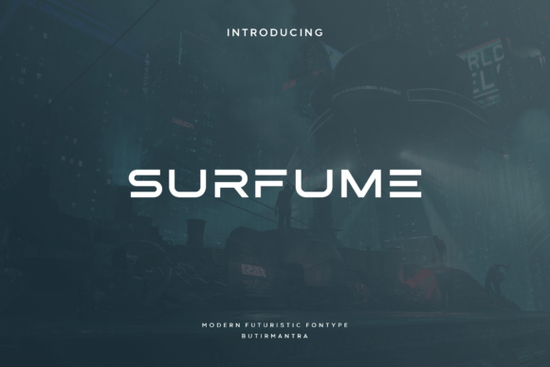
When you're looking for a font that can add a modern and elegant touch to your projects, Surfume Font is a great choice. This futuristic typeface draws inspiration from science fiction films and books, making it perfect for a wide range of creative endeavors like movies, posters, logos, and labels.
Why Choose Surfume Font?
Surfume Font stands out with its minimalistic design, which gives it a sleek and contemporary look. Whether you're a designer, crafter, or a small business owner, this font can help you create visually appealing and professional-looking designs. Its versatility makes it suitable for both digital and print projects, ensuring that your work looks polished and modern.
How Can You Use Surfume Font in Your Projects?
One of the key strengths of Surfume Font is its adaptability. Here are some ways you can incorporate it into your projects:
- Movies and Film Posters: The futuristic style of Surfume Font can add an extra layer of intrigue and sophistication to movie titles and film posters.
- Logos and Branding: For businesses aiming for a modern and clean aesthetic, Surfume Font can be a great choice for logos and branding materials.
- Print-on-Demand Products: T-shirts, mugs, and other merchandise can benefit from the unique and eye-catching style of this font.
- Web Design: Use Surfume Font to create headings and titles that grab attention and give your website a contemporary feel.
Comparing Surfume Font with Other Sans Serif Fonts
While Surfume Font has its unique charm, it's always good to compare it with other popular sans serif fonts. For instance, Best Friend Font offers a more friendly and approachable style, while Poppins Font is known for its geometric and clean appearance. Each of these fonts has its own strengths, so choosing the right one depends on the specific tone and style you want to achieve in your project.
Tips for Using Surfume Font Effectively
To make the most of Surfume Font, here are some practical tips:
- Balance with Simplicity: Since Surfume Font has a minimalistic and modern style, pair it with simpler elements to avoid overwhelming the design.
- Experiment with Sizes: Play around with different font sizes to see what works best for your project. Larger sizes can be used for headings, while smaller sizes can be used for body text.
- Consider the Context: Think about the overall theme and message of your project. Surfume Font works well in futuristic and modern contexts, but may not be the best fit for more traditional or vintage designs.
Next Steps for Incorporating Surfume Font
Now that you have a better understanding of how to use Surfume Font, here’s a quick checklist to help you get started:
- Brainstorm the types of projects where you can use this font, such as movie posters, logos, or web designs.
- Create a few mockups to see how the font looks in different contexts and sizes.
- Get feedback from colleagues or friends to refine your design choices.